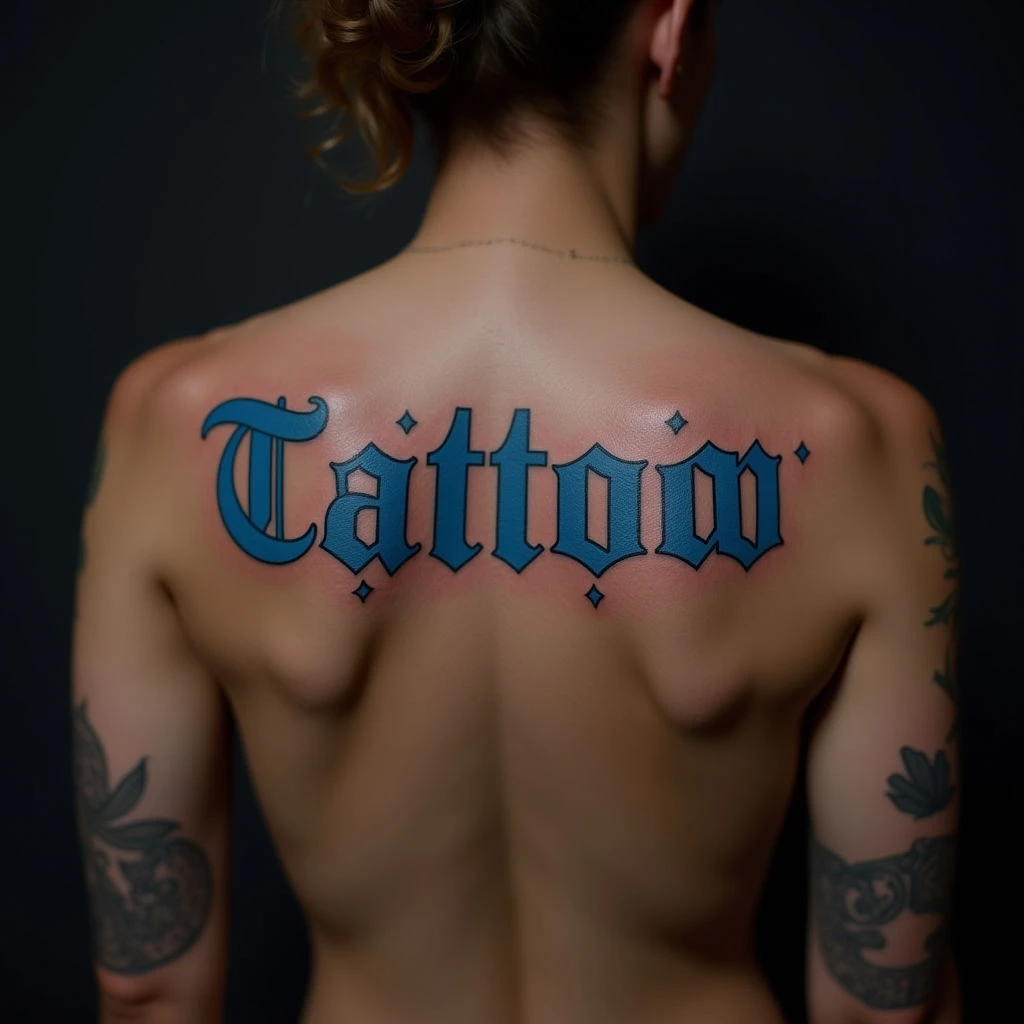
New School Letter Fonts for Collarbone Tattoos
Bold, stylized script dominates the upper back, spelling “Tattoo” in a range of blue ink tones. Diamond accents add visual interest and dynamism to the piece. The clean linework and smooth shading create a polished aesthetic, further enhanced by smaller illustrative tattoos on the forearms.
This new school typography style is particularly well-suited for collarbone placement, allowing for a striking visual statement. Blue hues lend a cool, modern feel to the custom letter fonts, making them ideal for those seeking expressive and unique body art.
Consider larger sizes ('l' in this example) to maximize impact and detail when incorporating these vibrant letter fonts into your collarbone tattoo design. Explore variations on this theme – perhaps adding more illustrative elements or experimenting with different shades of blue for a truly personalized piece.